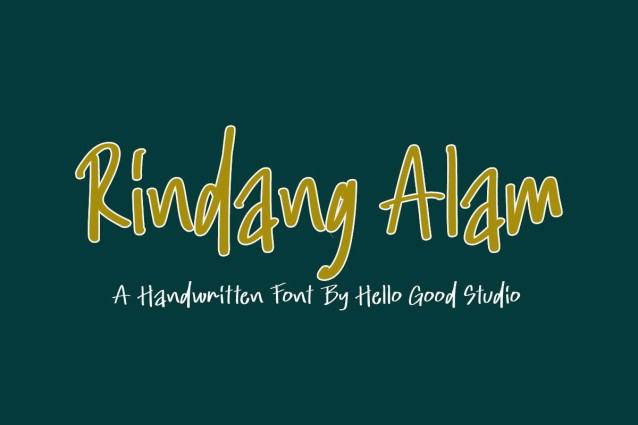
Rindang Alam Font
Rindang Alam Font is a simple and friendly handwritten font. Its natural and unique style makes it incredibly fitting to a large pool of designs. The only limit is your imagination!